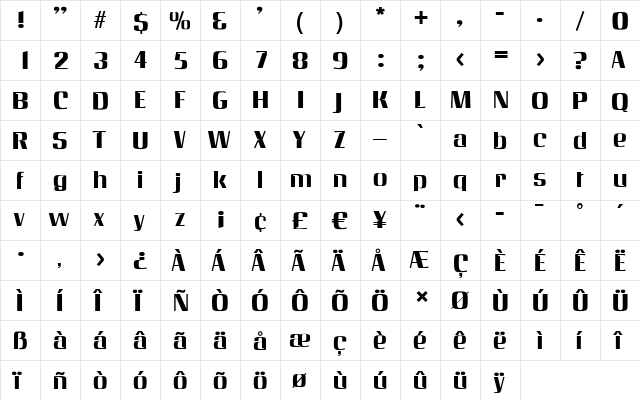
AngelicaBecker Regular
Design Context for AngelicaBecker Typeface
AngelicaBecker takes a measured approach to typography — its balanced proportions and neutral character make it a reliable workhorse for both digital and print work.